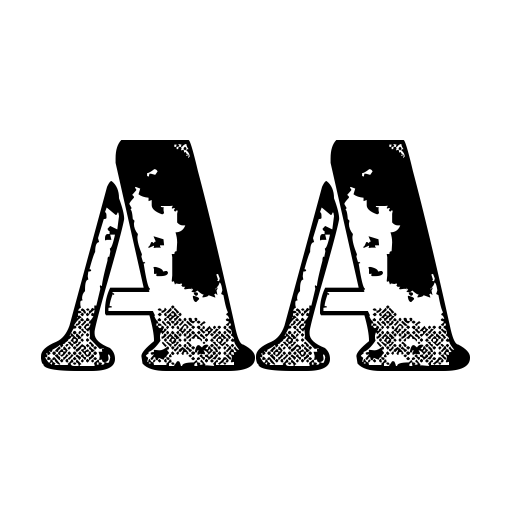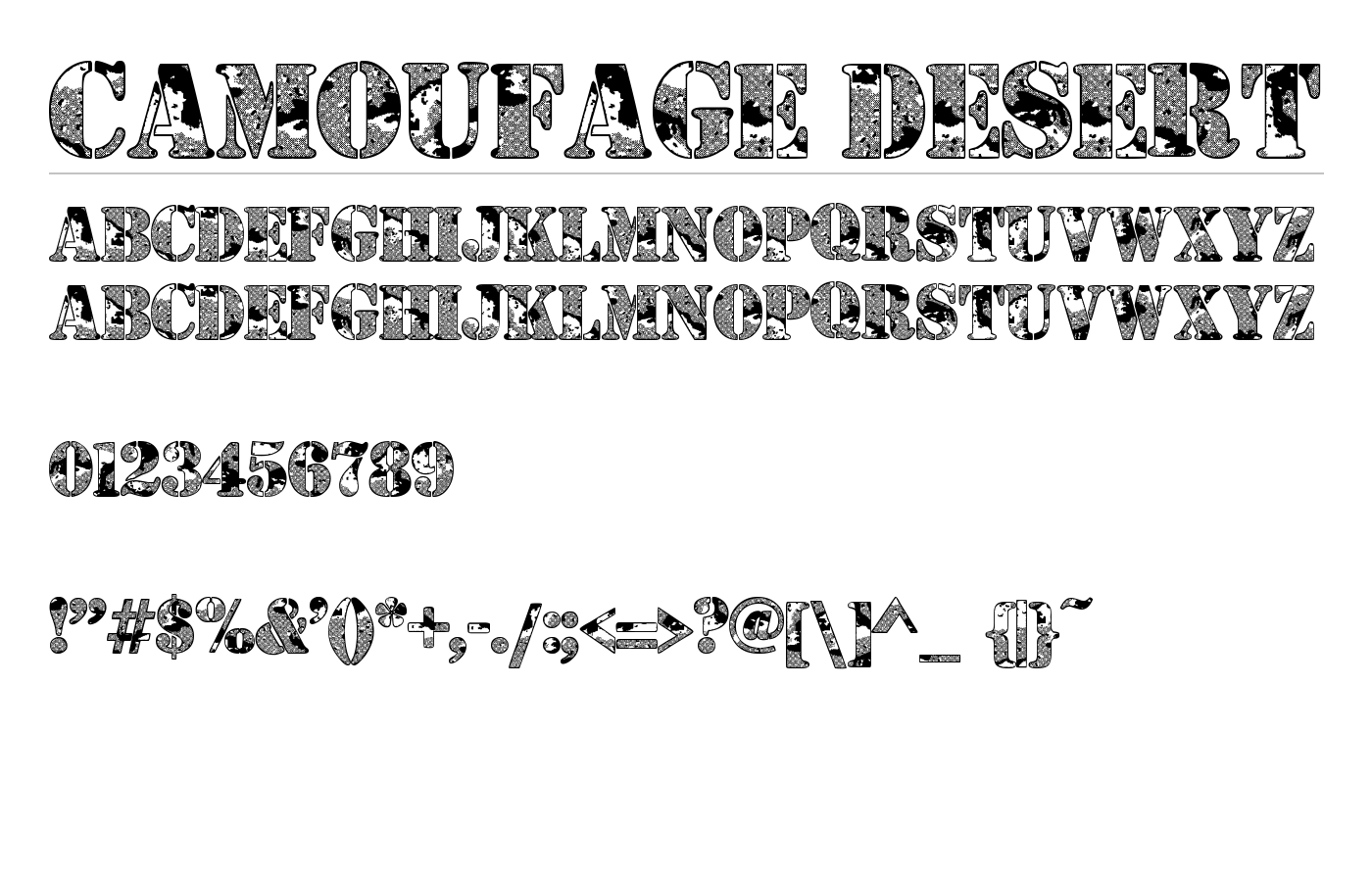
Camouflage Desert is a bold, slab serif typeface with a distinct military-inspired camouflage pattern within its strong, blocky letterforms. Its uppercase-only design, combined with sturdy serifs and high contrast textures, gives it a rugged yet eye-catching style perfect for bold headlines, posters, and branding that demands a tough, adventurous, or tactical feel. This font excels in large display uses where its unique pattern and solid structure can stand out and make a visual impact.
Camouflage Desert Font
About Camouflage Desert Font